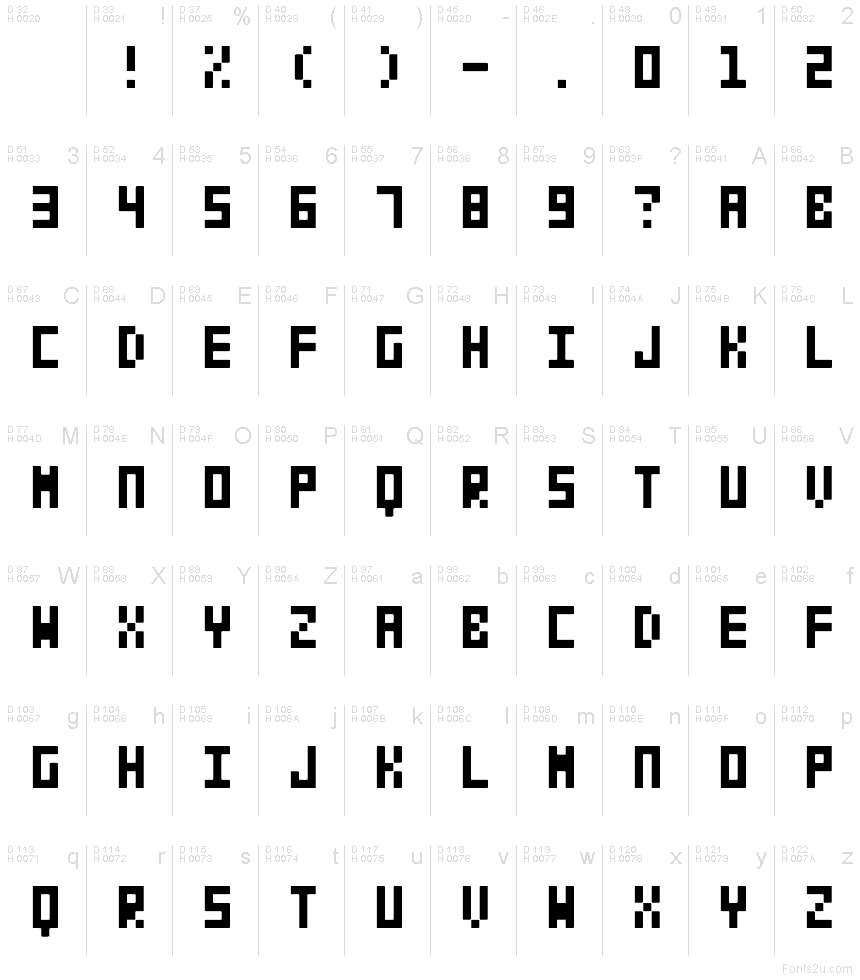
TOUCHCONCRETE
Touchconcrete font by Grasstouchers is a pixelated bitmap font with a bold weight and condensed width. Created using tiny visible dots, this geometric font looks both modern and highly versatile. The dynamic letter structure embraces a strong architectural vibe together with an industrial edge for various design purposes.
Thanks to its versatility, Touchconcrete will look exceptional on posters, magazines, ads, branding projects, headings, logos and packaging designs. Web-based projects are other examples where this free pixelated typeface will shine beautifully.